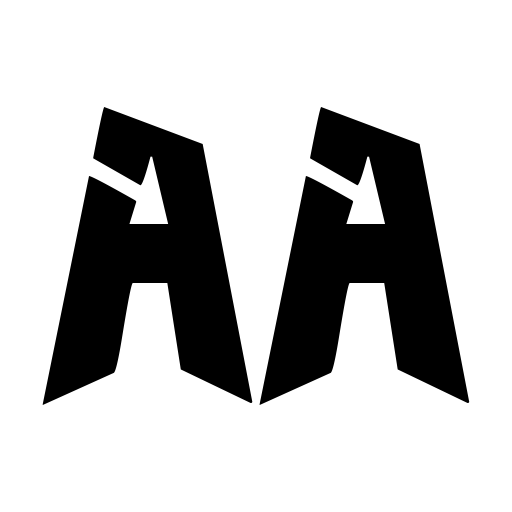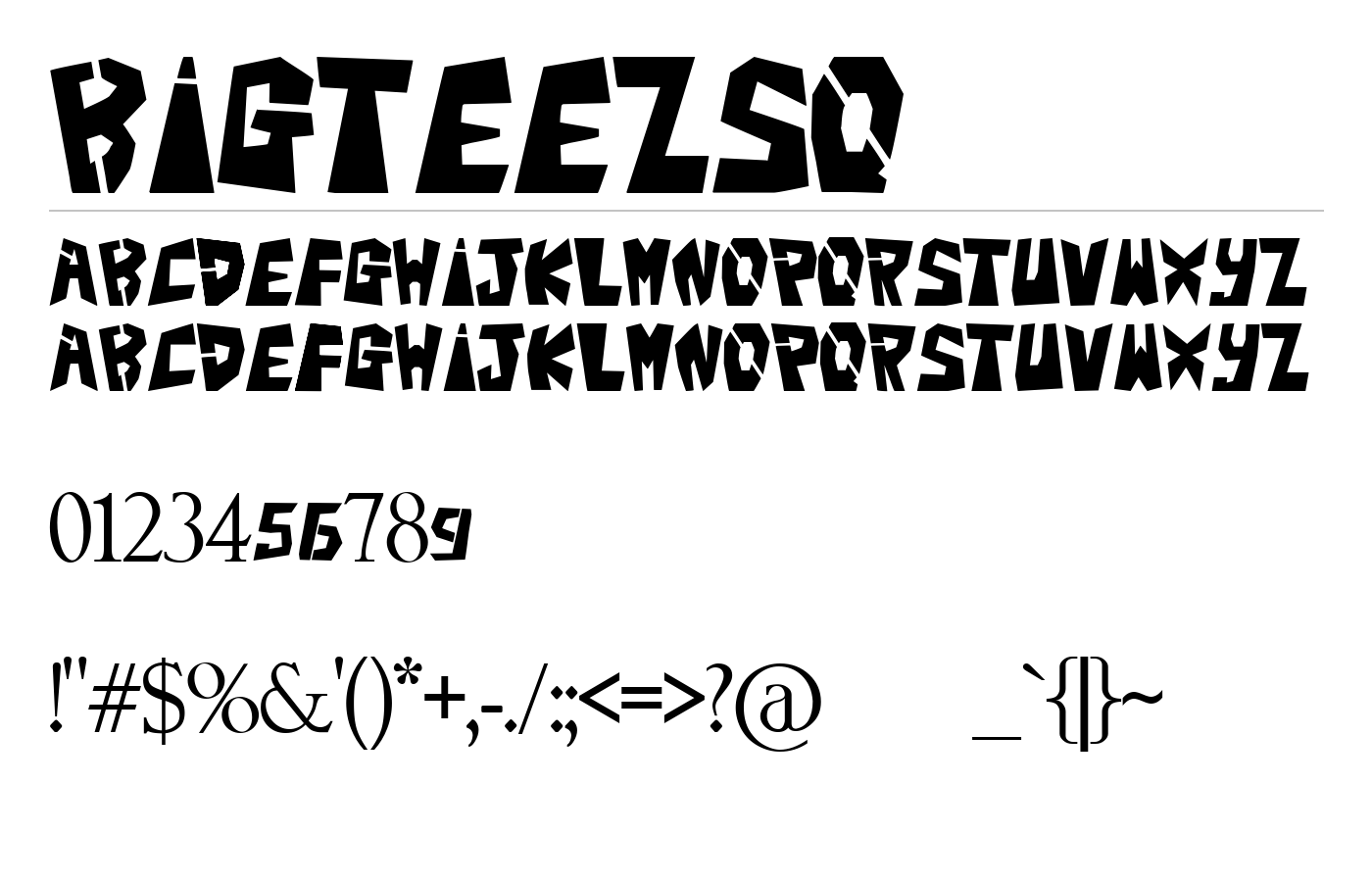
BigTeezSq is a bold, playful display font with a quirky, irregular design featuring sharp angles and uneven letterforms that give it a dynamic, hand-crafted feel. Its heavy weight and condensed shape make it ideal for eye-catching headlines, logos, or posters where a fun, energetic personality is desired. This font stands out best in creative, informal projects that want to convey uniqueness and a strong visual impact.
BigTeezSq Font